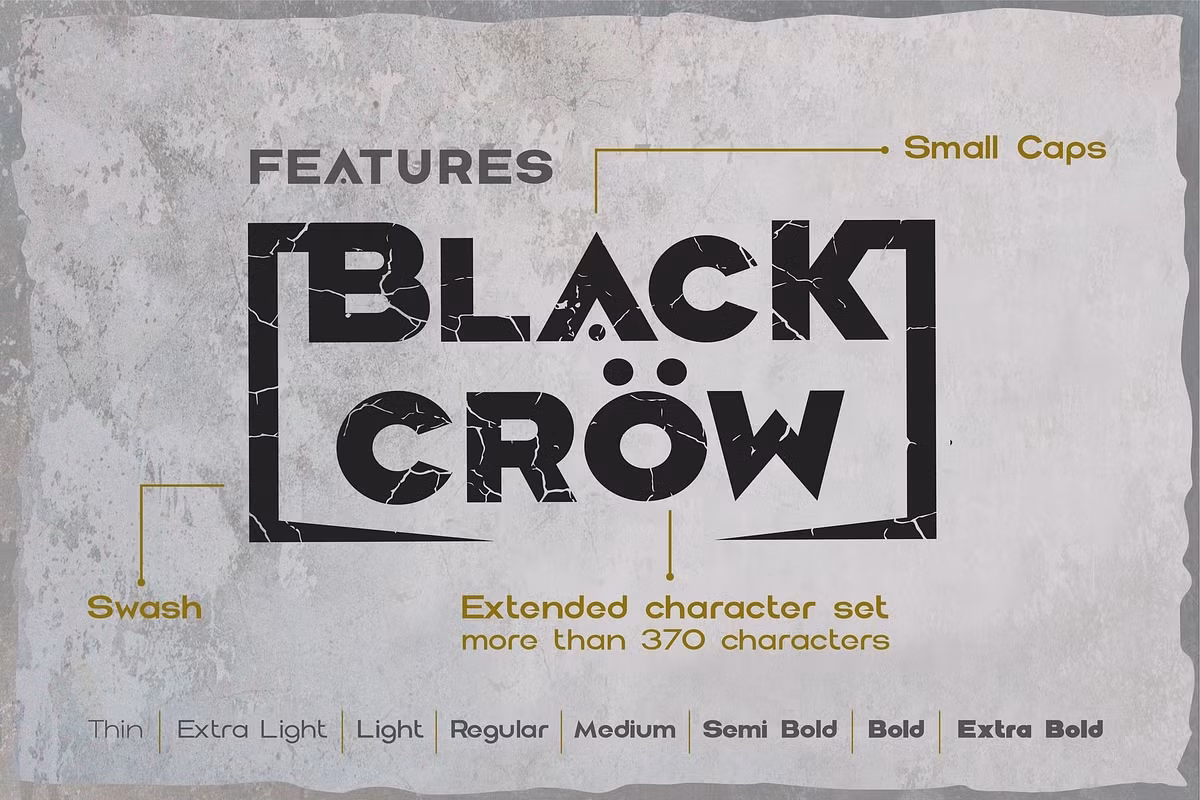
Black crow. Strong sans-serif family Free Download
Black Crow Strong Sans-Serif Font Family Free Download
Black Crow Strong Sans-Serif Font Family is perfect for bold brand identities, powerful logo design, commanding headline typography, impactful advertising campaigns, strong corporate materials, authoritative signage systems, dynamic poster design, industrial branding projects, masculine product packaging, confident business communications, striking editorial layouts, and forceful design applications.
Black Crow Strong Sans-Serif Font Family is exciting because it delivers uncompromising strength and commanding presence through its bold sans-serif architecture that embodies power, confidence, and unwavering determination with every letterform. This formidable typeface features robust geometric proportions and strong character construction that creates immediate visual impact and authoritative communication. The font family's powerful aesthetic commands attention and respect, making every message feel important and every brand appear strong and reliable.
Black Crow Strong Sans-Serif Font Family includes comprehensive font families: Regular Strong Style, Bold Commanding Weight, Light Confident Touch, Medium Powerful Balance, Italic Dynamic Slant, Condensed Impact Format, Extended Presence Width, Ultra Bold Statement, Black Maximum Weight, and Special Strong Symbols, providing complete solutions for powerful typography needs and authoritative brand communications that demand strength and presence.
This commanding typography solution transforms ordinary communications into powerful brand statements through its authoritative sans-serif aesthetic and strong design presence. Black Crow Strong Sans-Serif Font Family Free Download enables designers and bold brands to access premium strong typography that instantly adds power, authority, and commanding presence to any creative project. The font family's meticulously engineered proportions ensure maximum impact while maintaining excellent readability and distinctive strong character.
Corporate brands, industrial companies, and authoritative businesses trust Black Crow Strong Sans-Serif Font Family for its ability to communicate strength, reliability, and commanding presence to audiences seeking confident leadership and powerful brand experiences. The typeface family's robust construction performs exceptionally well across various applications, from intimate corporate communications to large-scale commanding displays. Its extensive character support includes multilingual capabilities and strong design elements that enhance powerful brand presentations.
The design philosophy behind Black Crow Strong Sans-Serif Font Family emphasizes the importance of strength and confidence in brand communication, creating typography that projects authority and commands respect in competitive markets. This strength-focused approach creates a font family that feels genuinely powerful while maintaining professional versatility across different authoritative contexts and commanding brand expressions.
Whether creating corporate identities, industrial branding materials, or powerful marketing campaigns, this strong sans-serif family delivers exceptional results that embody strength and commanding authority. Download Black Crow Strong Sans-Serif Font Family today and discover how premium strong typography can transform your design projects into powerful expressions of authority, confidence, and the commanding presence that defines the most influential and respected brands.